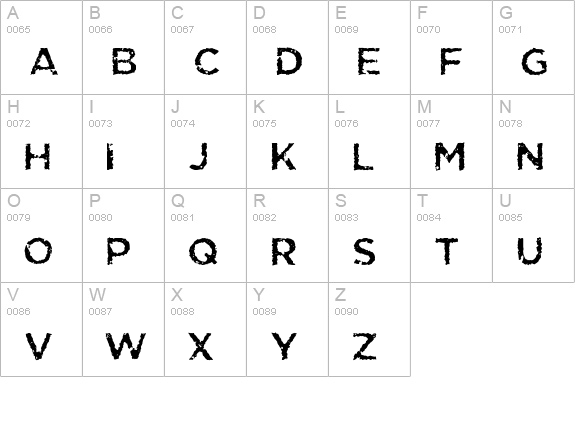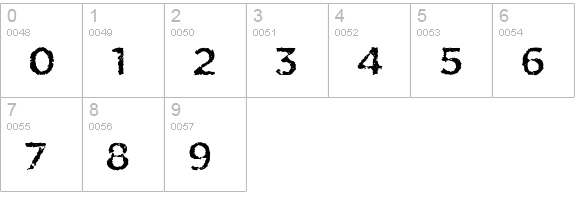
Eride Font Details
Eride font is a modern and stylish typeface that exudes elegance and sophistication. Its sleek lines and unique shapes make it perfect for a wide range of design projects, from branding to editorial design. The versatility of Eride font allows it to be used in both digital and print applications, making it a must-have in any designer's toolkit. And the best part? Eride font is available for free download at FontsMarket.com! This means you can easily access this stunning font and elevate your designs without breaking the bank. Don't miss out on the opportunity to add Eride font to your collection and take your projects to the next level. Download it today and see the difference it can make!